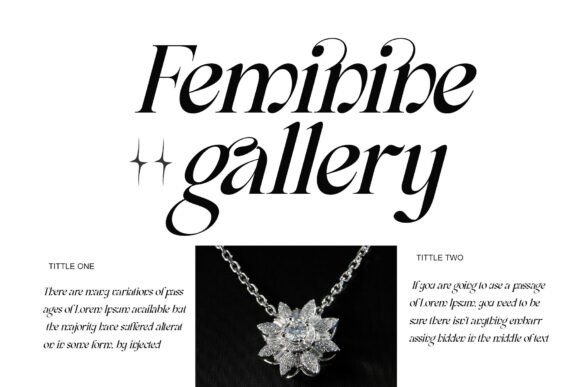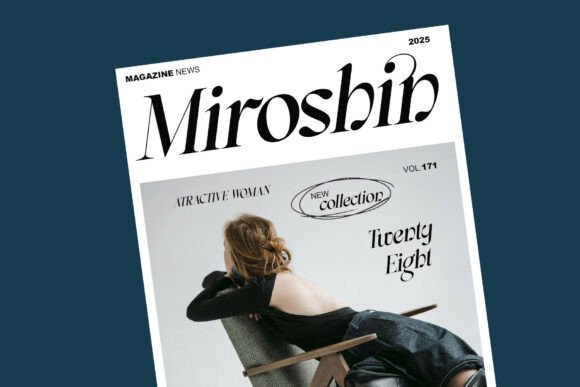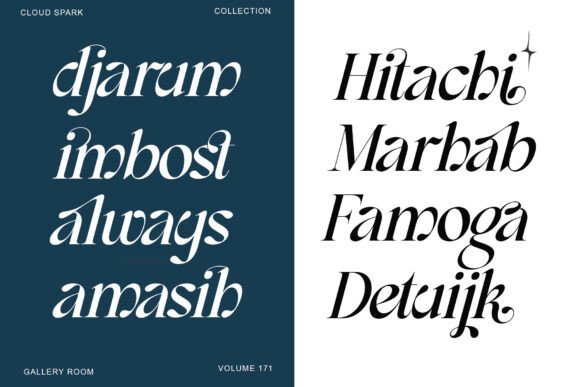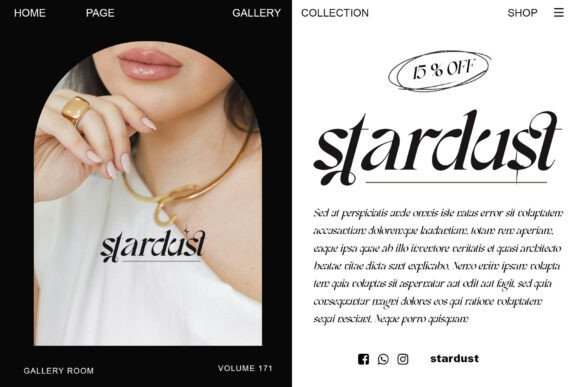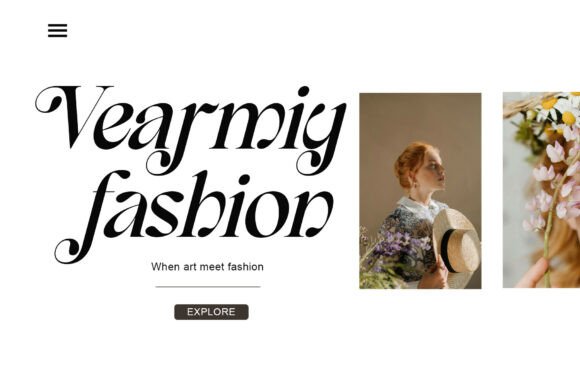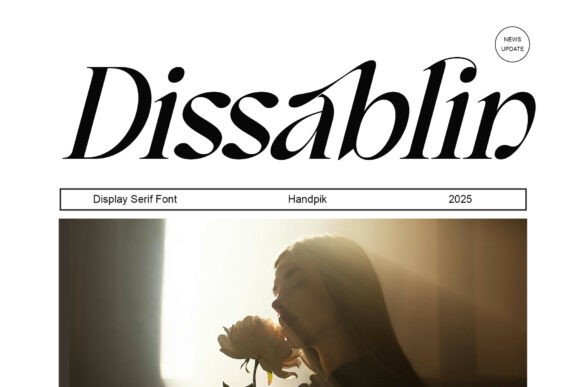
Introducing Cloud Spark: The Elegant Serif Font for Luxurious Designs
Are you looking for a font that embodies the perfect blend of classic luxury and modern ethereal charm? Look no further than Cloud Spark, an exquisite elegant serif font designed to illuminate your designs. With its graceful transitions between thick and thin strokes, Cloud Spark is the premier choice for creating dream-like branding, editorial headlines, upscale wedding invitations, and luxury product packaging.
The Intersection of Classic and Modern
Cloud Spark’s design is rooted in the elegance of traditional serif fonts, with a modern twist that sets it apart from the rest. Its classic roots evoke a sense of luxury and sophistication, while its modern ethereal charm adds a touch of whimsy and wonder. This unique blend makes Cloud Spark the perfect font for designers who want to create high-end designs that stand out from the crowd.
Perfect for Luxurious Designs
Cloud Spark’s versatility makes it an excellent choice for a wide range of design applications. Whether you’re designing for a boutique skincare line, a high-fashion magazine, or a luxury product packaging campaign, this font adds a touch of celestial brilliance to every word. Its elegant serif design and flowing strokes create a sense of movement and fluidity, making it perfect for headlines, titles, and other display text.
Dream-Like Branding and Editorial Headlines
Cloud Spark’s dreamy, ethereal quality makes it an excellent choice for branding and editorial headlines. Its delicate strokes and flowing curves create a sense of whimsy and wonder, perfect for capturing the attention of readers and setting the tone for a luxurious brand or publication. Use Cloud Spark to create eye-catching headlines, titles, and taglines that will leave a lasting impression on your audience.
Upscale Wedding Invitations and Luxury Product Packaging
For special occasions like weddings and high-end product launches, Cloud Spark is the perfect font choice. Its elegant design and luxurious feel make it ideal for creating upscale wedding invitations, save-the-date cards, and other stationery. Similarly, its sophisticated design makes it perfect for luxury product packaging, adding a touch of high-end quality to your brand’s products.
Key Features of Cloud Spark
- Elegant Serif Design: Cloud Spark’s classic serif design makes it perfect for creating luxurious and sophisticated designs.
- Graceful Transitions: The font’s smooth transitions between thick and thin strokes create a sense of movement and fluidity.
- Modern Ethereal Charm: Cloud Spark’s modern twist adds a touch of whimsy and wonder to its classic design.
- Versatile: Cloud Spark is suitable for a wide range of design applications, from branding and editorial headlines to upscale wedding invitations and luxury product packaging.
Tips for Using Cloud Spark
To get the most out of Cloud Spark, here are a few tips to keep in mind:
- Use it as a Display Font: Cloud Spark is perfect for headlines, titles, and other display text. Use it to create eye-catching designs that capture the attention of your audience.
- Pair it with a Sans-Serif Font: For body text, pair Cloud Spark with a clean sans-serif font to create a beautiful contrast between the two.
- Experiment with Colors: Cloud Spark looks stunning in a range of colors, from metallic gold and silver to rich jewel tones. Experiment with different colors to find the perfect fit for your design.
Cloud Spark is a truly unique and elegant serif font that is perfect for designers who want to create luxurious and sophisticated designs. With its classic roots and modern ethereal charm, this font is sure to illuminate your designs and add a touch of celestial brilliance to every word. Whether you’re designing for a boutique skincare line, a high-fashion magazine, or a luxury product packaging campaign, Cloud Spark is the perfect choice.